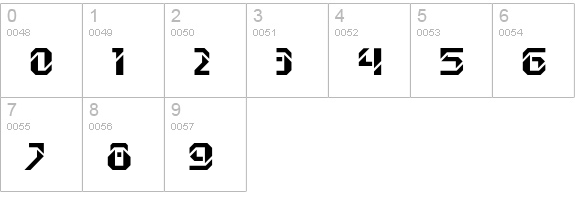
DexGothicEF Font Details
DexGothicEF is a striking and modern font that combines Gothic influences with a contemporary edge. Its bold and angular letterforms exude a sense of strength and sophistication, making it a perfect choice for projects that require a touch of drama and elegance. Whether you're designing a poster, logo, or website, DexGothicEF will make a powerful statement. The best part? DexGothicEF is completely free to download at FontsMarket.com. This means you can add this unique font to your collection without any cost, allowing you to unleash your creativity without breaking the bank. Don't miss out on the opportunity to enhance your designs with the bold and captivating DexGothicEF font – download it today and take your projects to the next level.